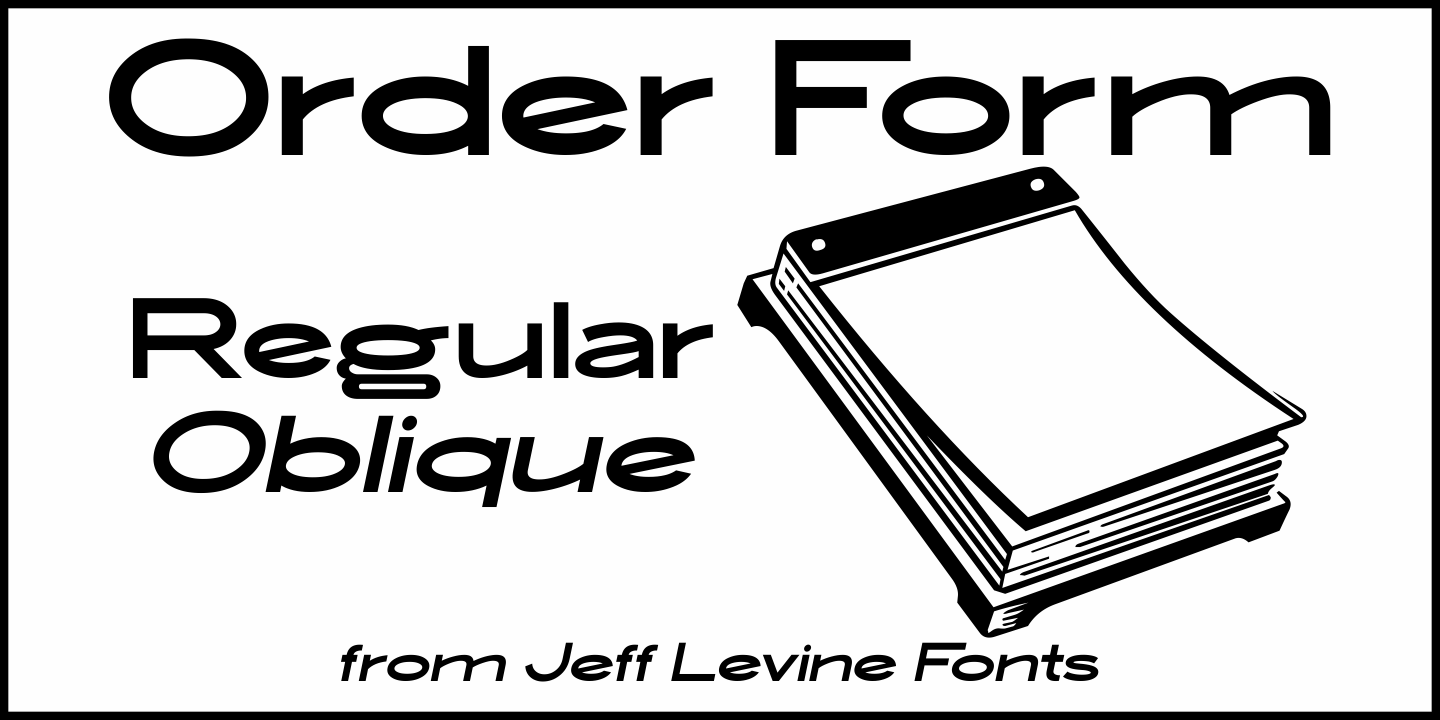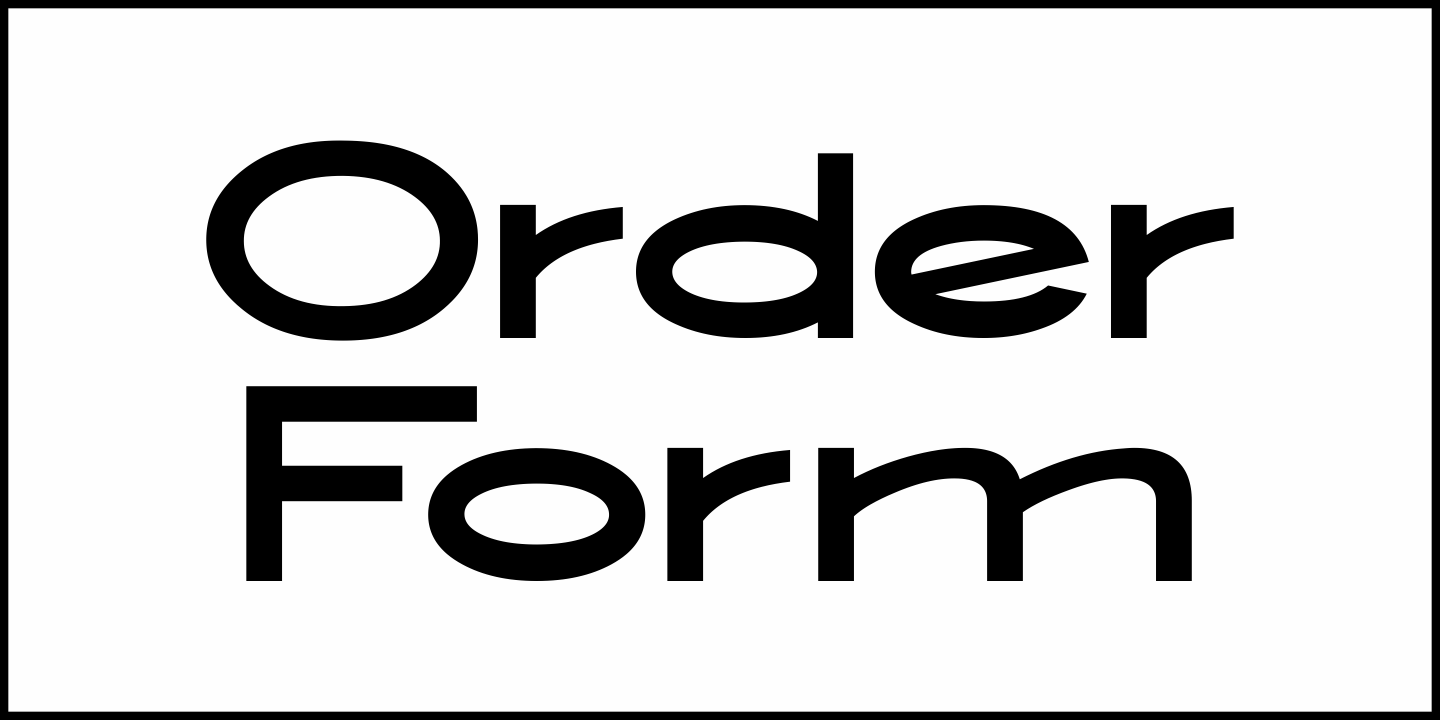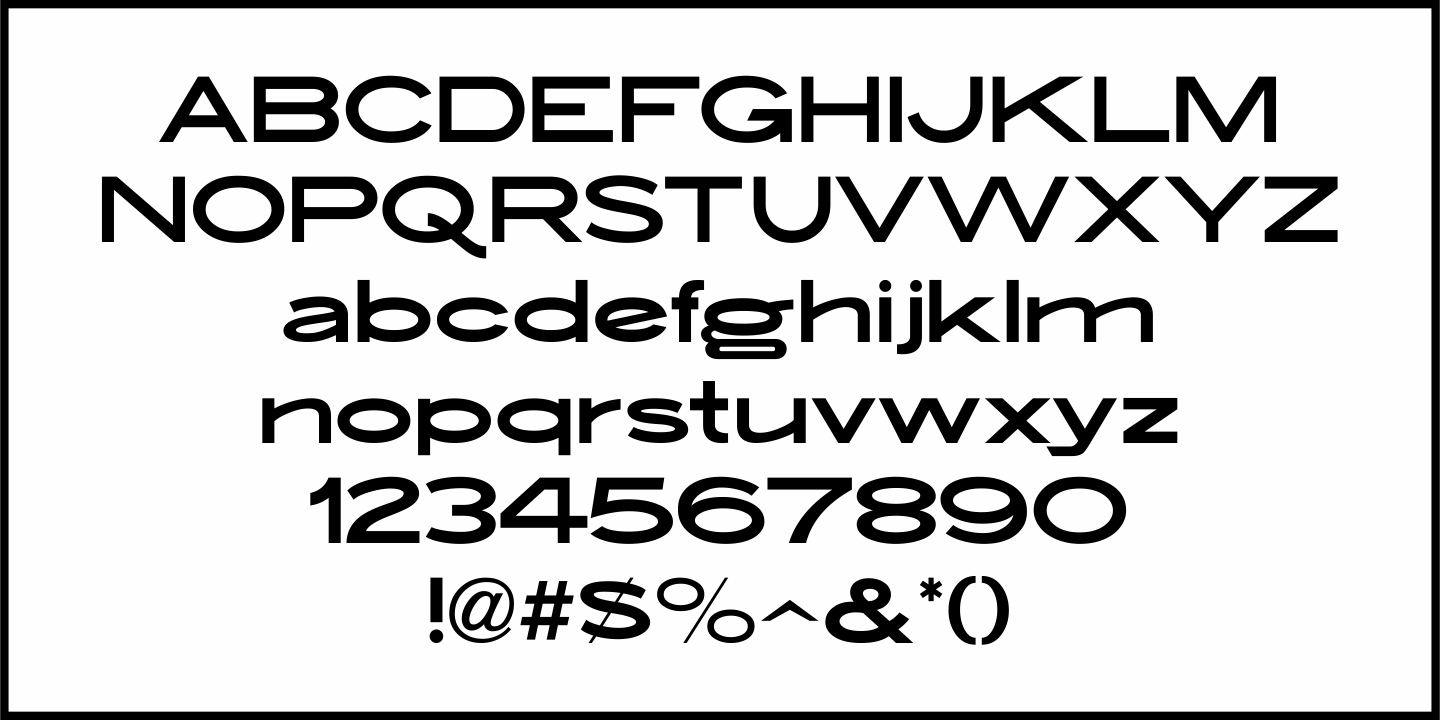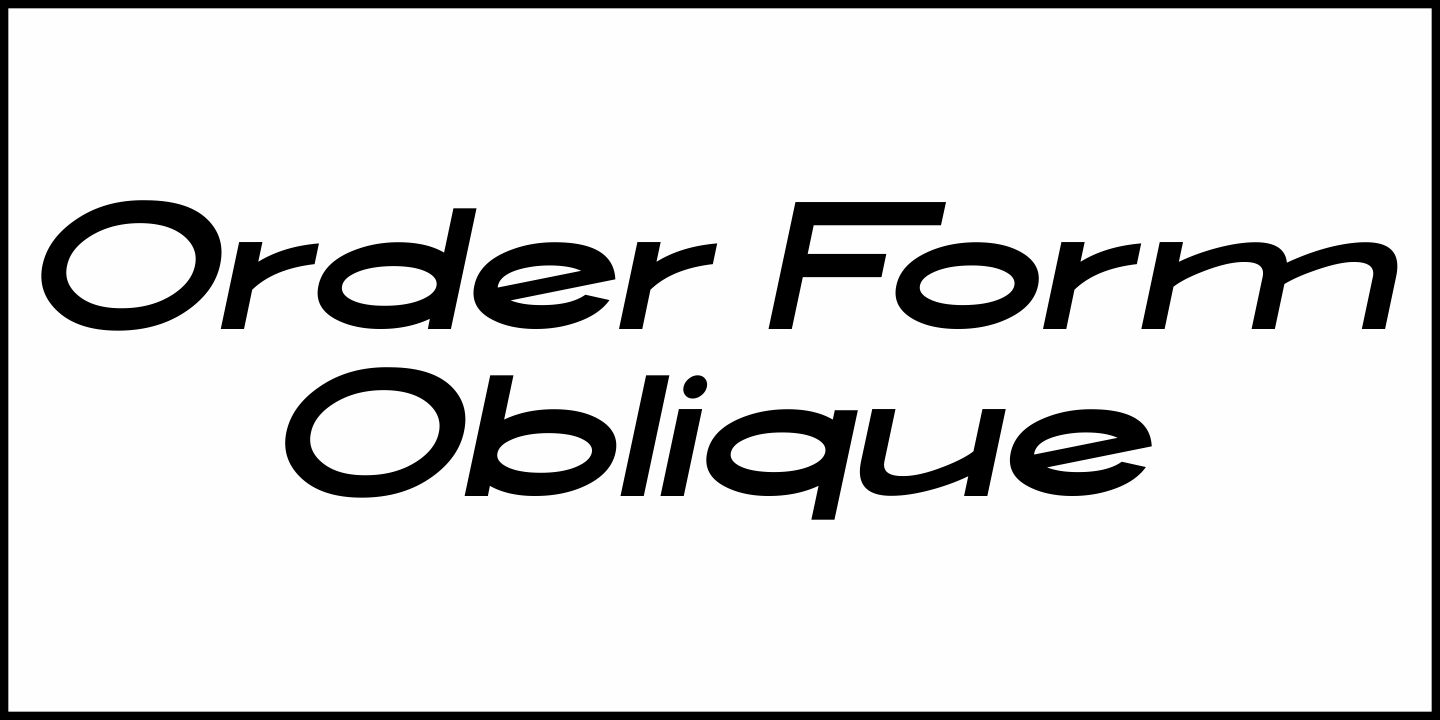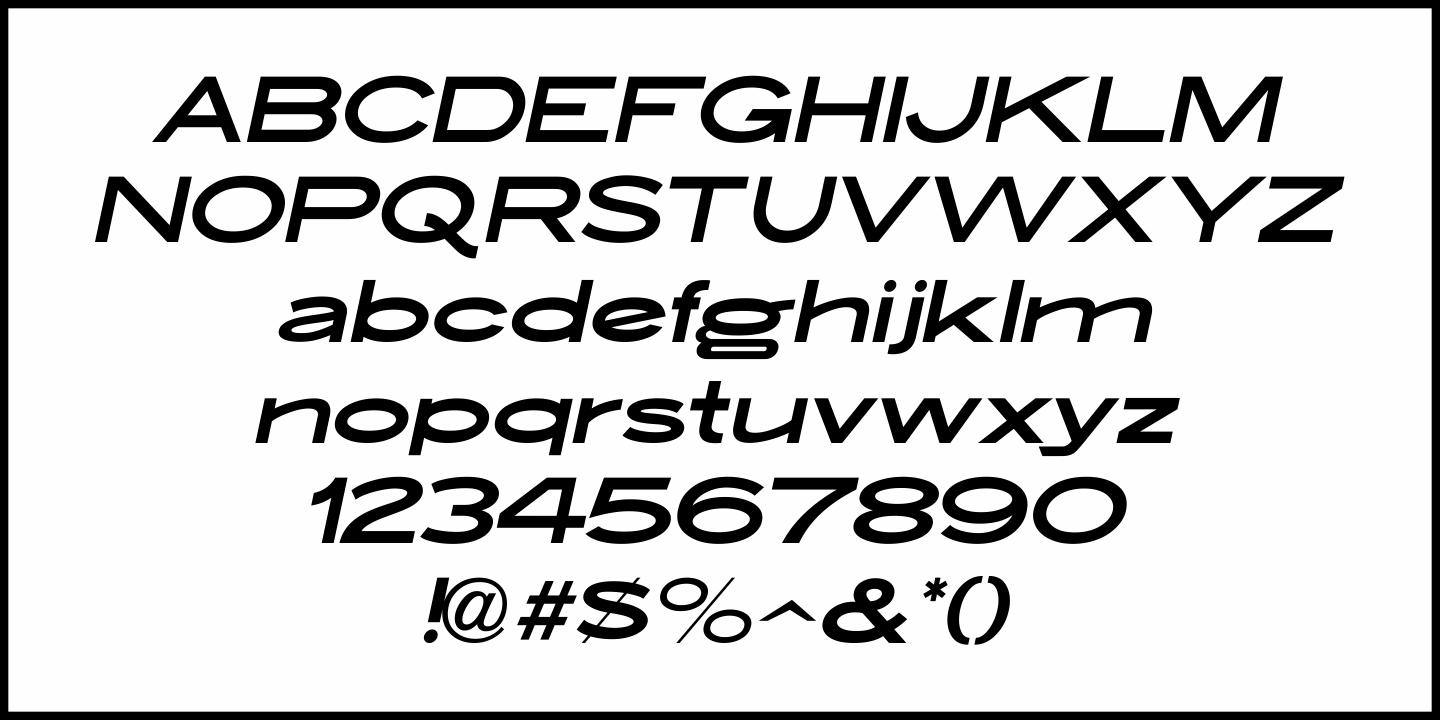
Order Form
In the MacKellar, Smiths & Jordan type specimen book of 1892 are examples of Lining Gothic Extended, a wide sans serif typeface.
A lining font has the numerals aligned with the capital letter height, rather than following the “Old Style” method of smaller figures that could also descend below the baseline.
Order Form JNL is the digital version of this design, and is available in both regular and oblique versions.